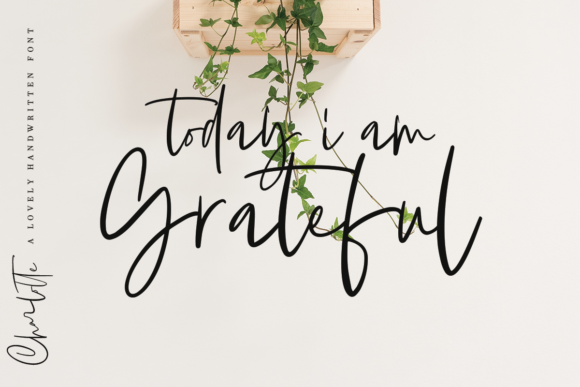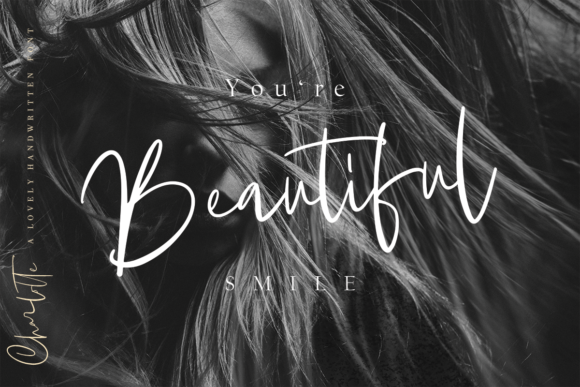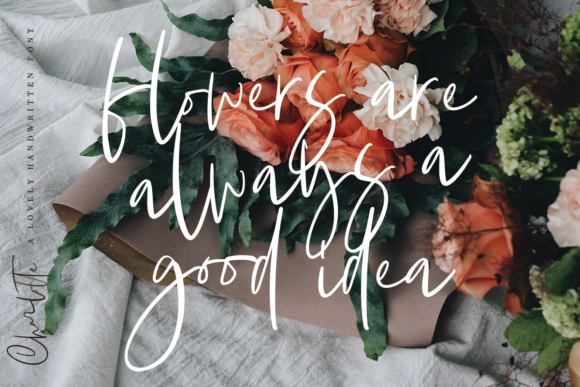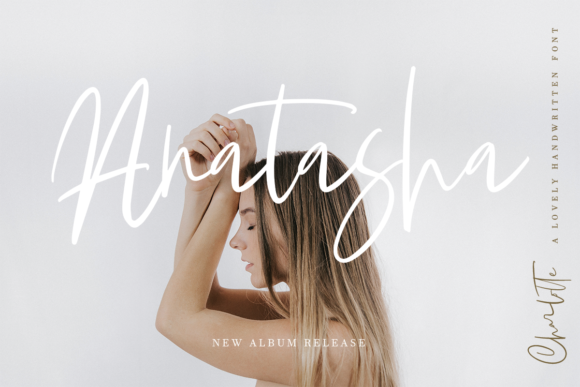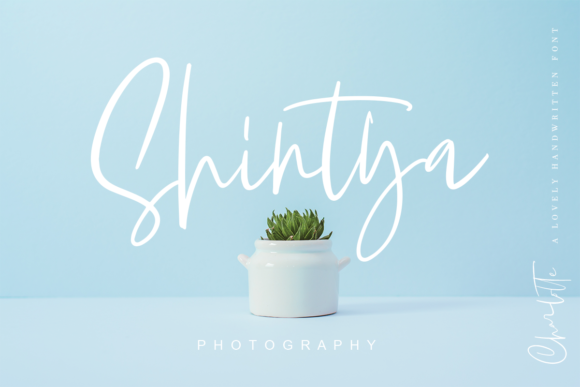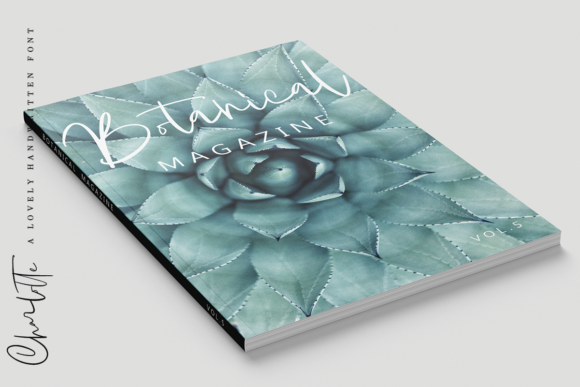
The Charlotte Font: A Beautiful Handwritten Script for Creative Projects
The Charlotte font is a beautiful handwritten script with a flowing, feminine style that’s perfect for a variety of creative projects. In this article, I’ll share my honest review of the font, provide a practical guide on how to use it, and explore similar fonts and alternatives.
The Good: ✨
- 💁♀️ Feminine and elegant: The Charlotte font exudes a sense of sophistication and glamour, making it perfect for fashion, beauty, and lifestyle brands.
- ✅ Versatile: This font can be used for logos, posters, titles, clothing, branding, invitations, and much more!
- 📝 Flowing character: The font’s flowing script style is ideal for creating interesting messages and adding a touch of personality to your designs.
The Not-So-Good: 🤔
- ⚠️ Limited use in small sizes: Due to its script nature, the Charlotte font may not be suitable for small font sizes or body text.
- 🤔 Kerning issues: As with many script fonts, you may need to adjust the kerning to ensure optimal spacing between letters.
The Story Behind the Charlotte Font
The Charlotte font was designed by a talented typographer who wanted to create a beautiful, feminine script font that would capture the essence of elegance and sophistication. Inspired by classic calligraphy and modern script styles, the Charlotte font is a unique blend of traditional and contemporary design elements.
Q: Is the Charlotte font suitable for body text?
A: Due to its script nature, the Charlotte font may not be suitable for body text or small font sizes. It’s best used for titles, headings, and creative projects.